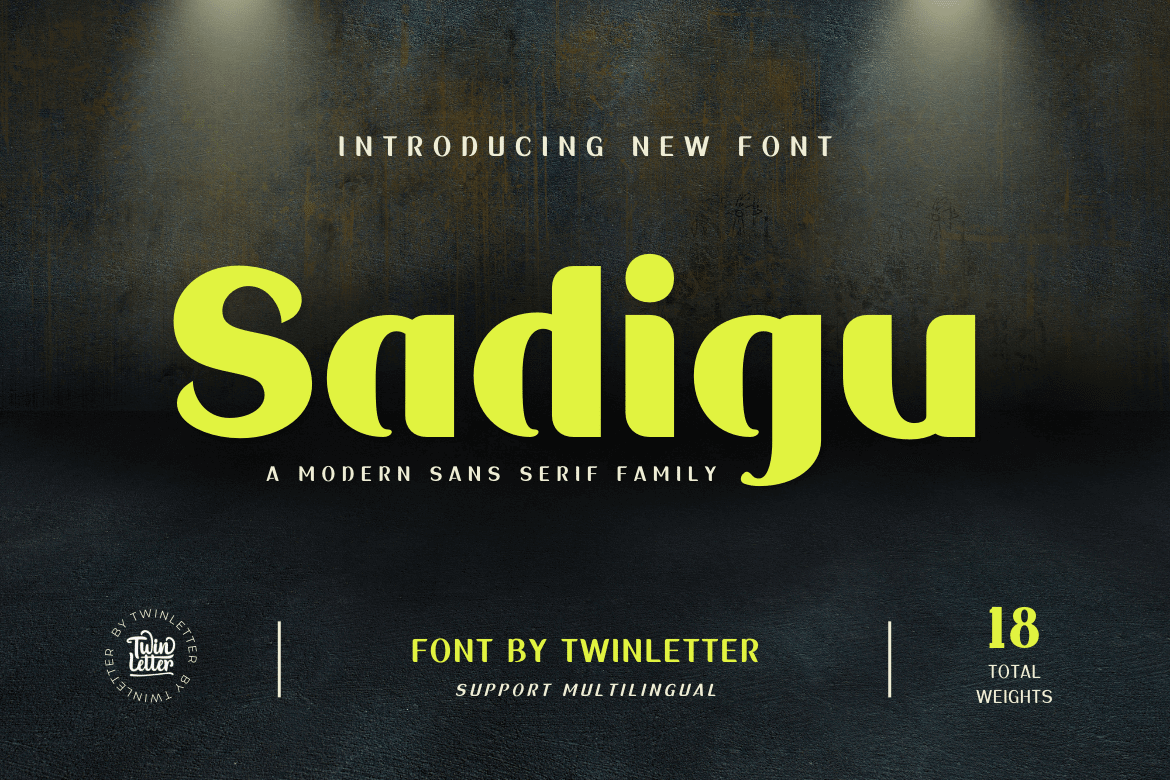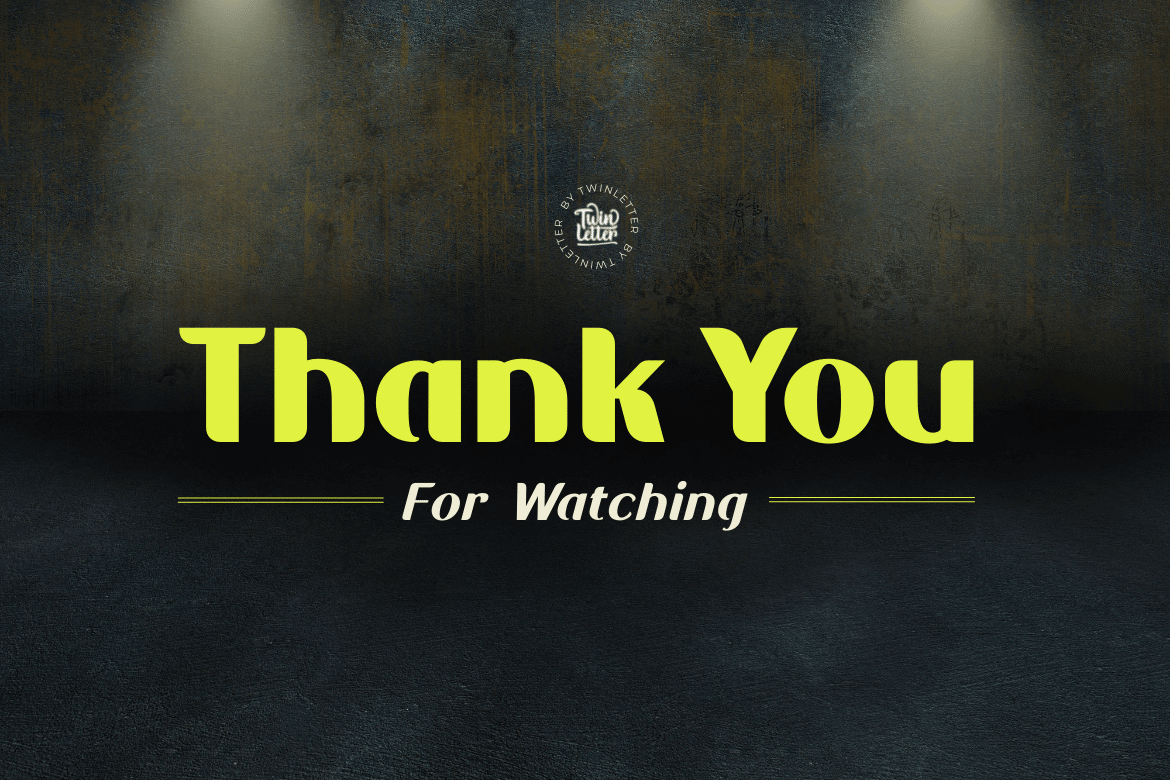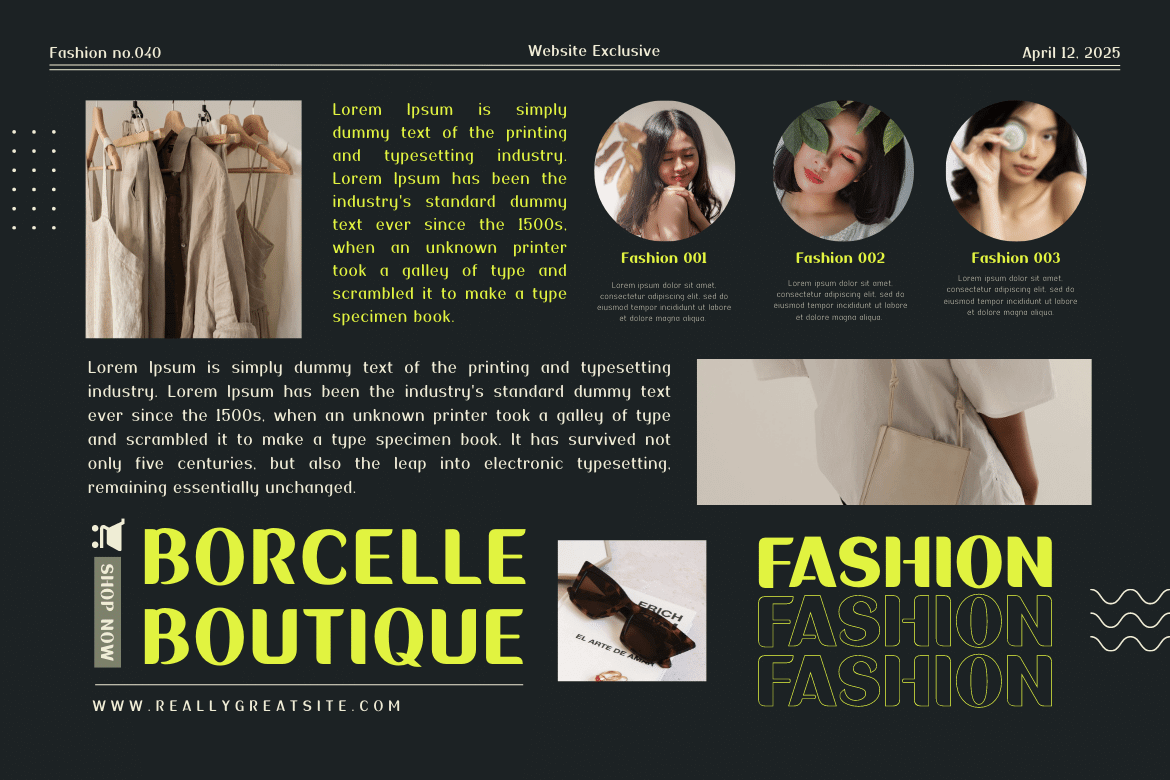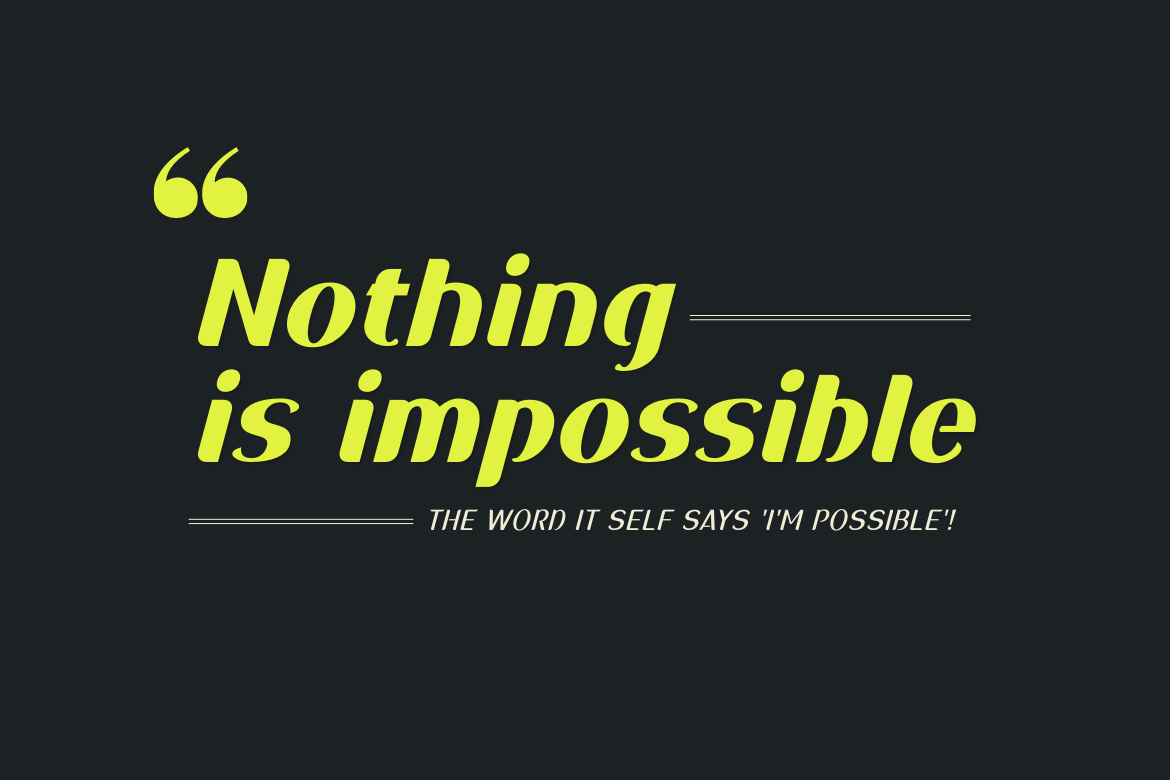
Sadigu
Sadigu san serif is a unique font family that can help you stand out from the rest. Every style in this impressive collection is made to help you get the most out of your designs: advertising, posting, and many other creative projects are all made easy with this beautiful typeface. This font can be easily optimized for any project or client thanks to its many OpenType features and 18 different styles. With our newest font family, you’ll be able to create stunning looks in minutes.
• Fonts include multilingual support